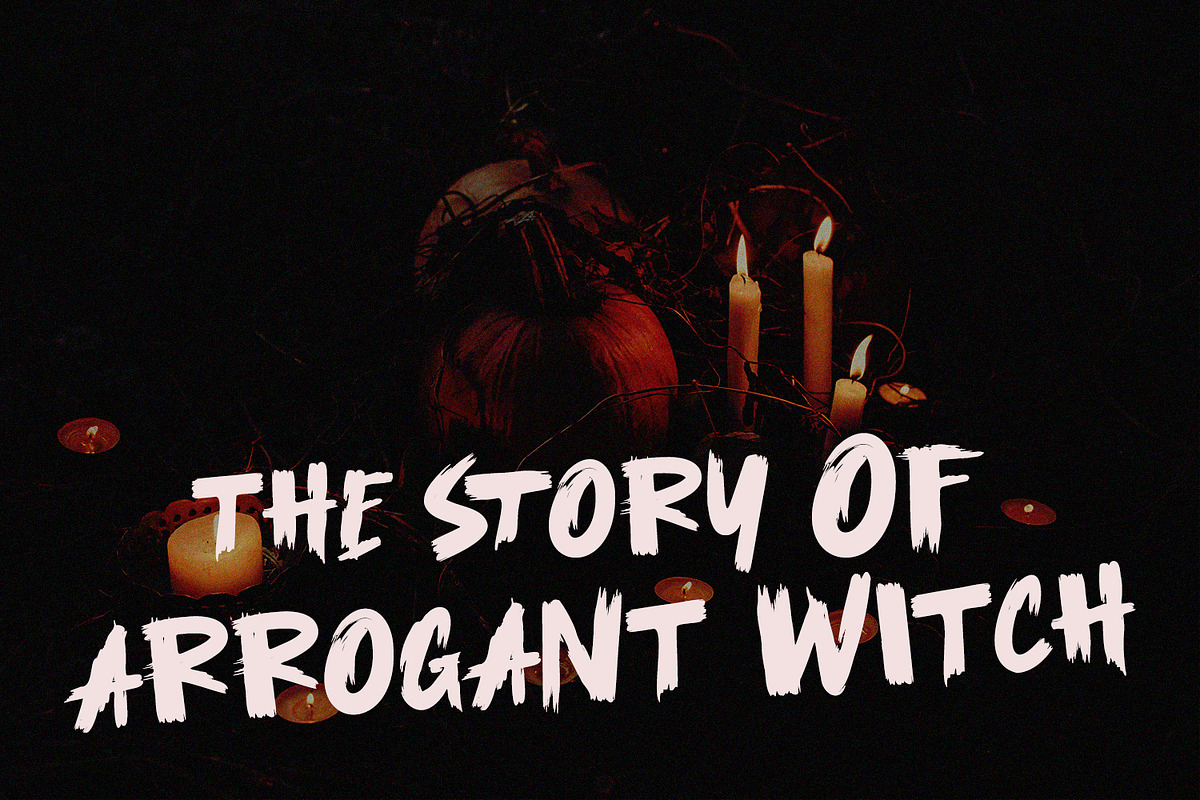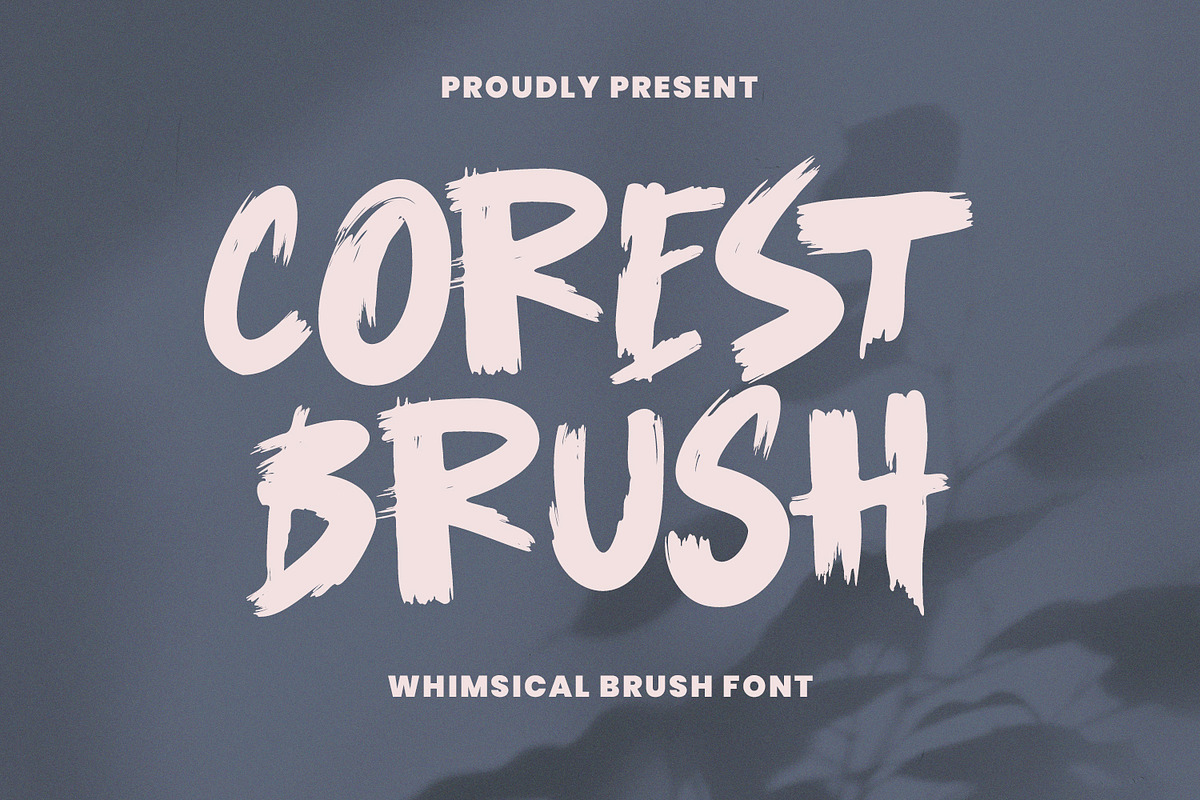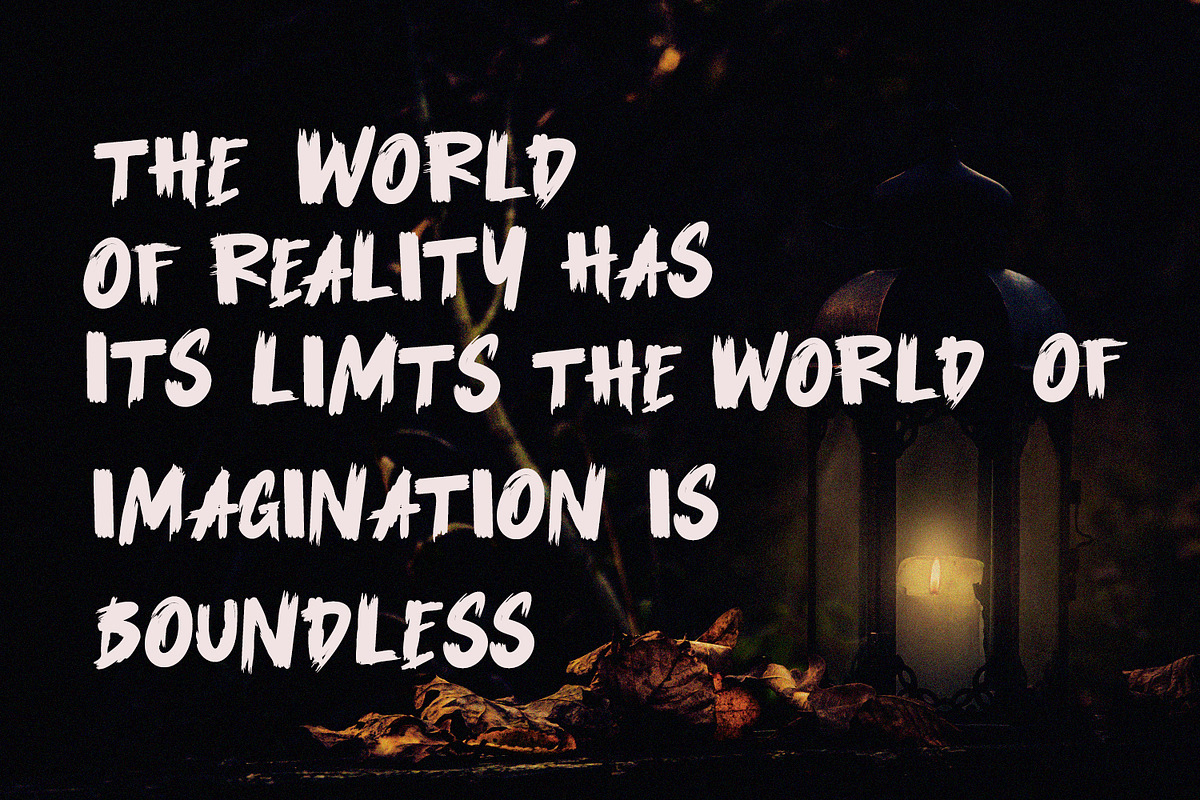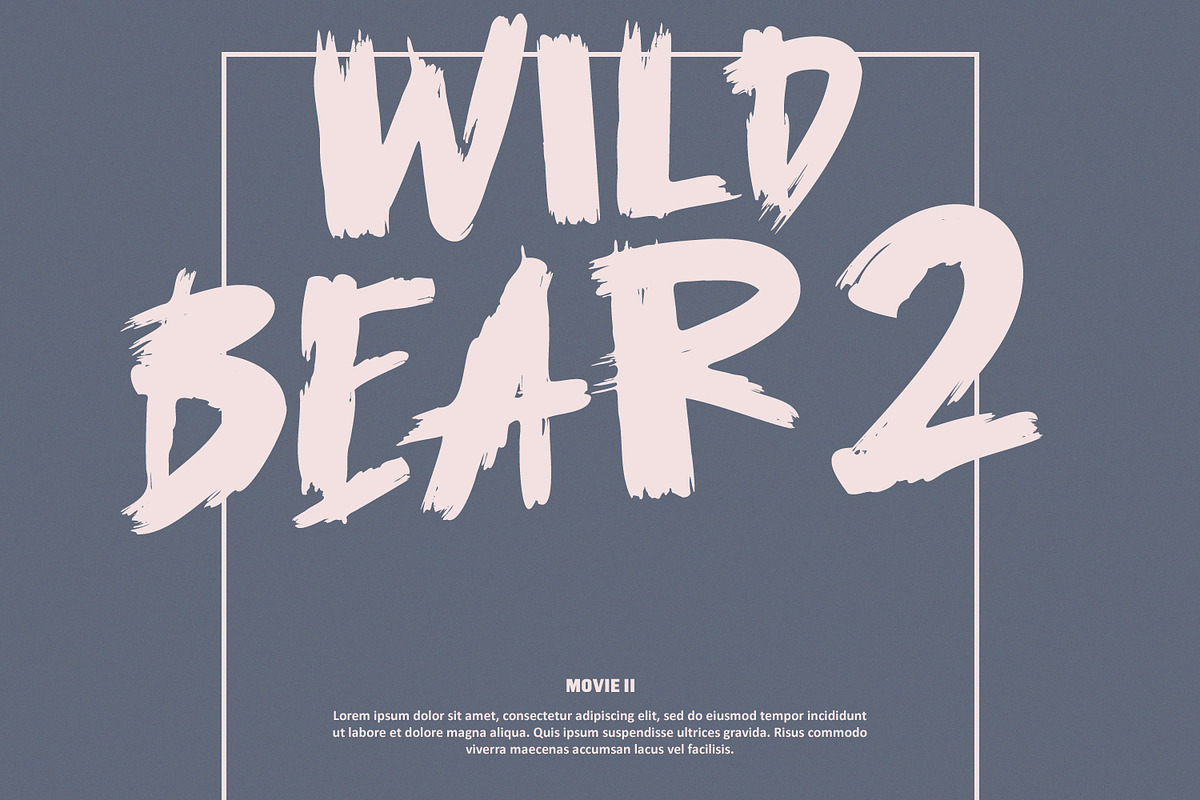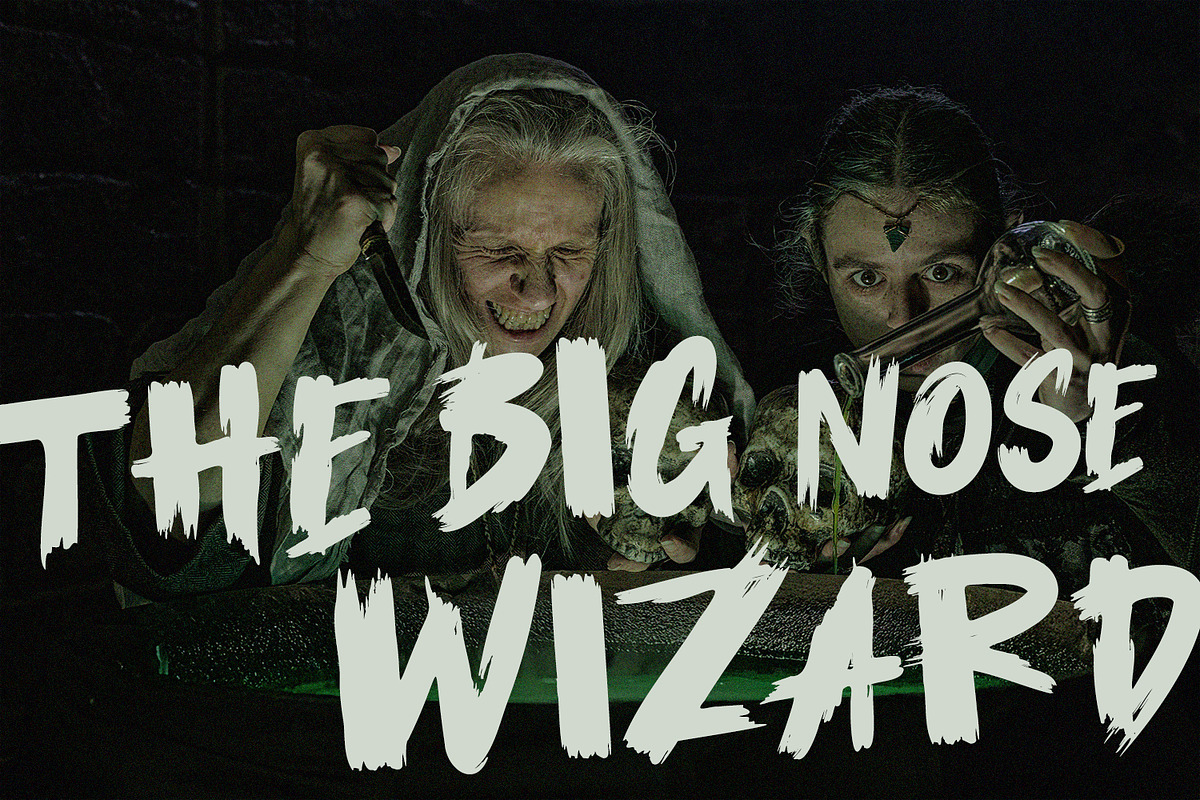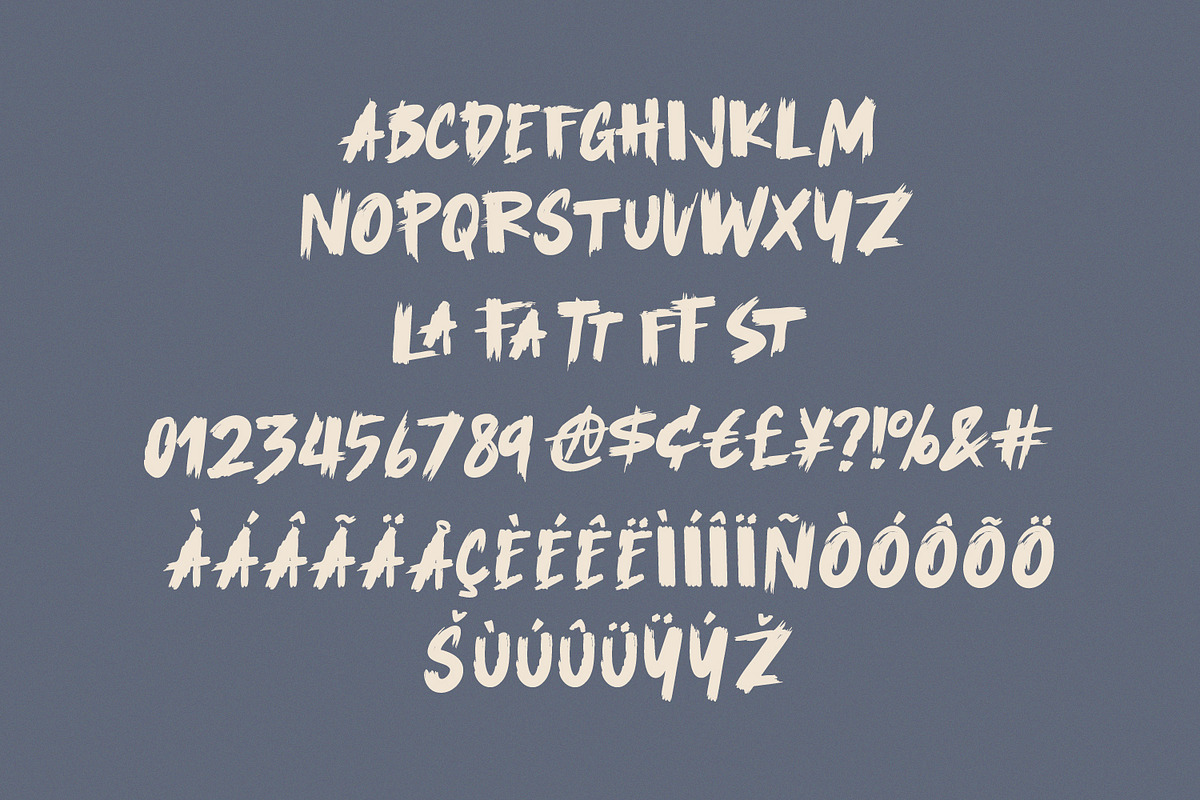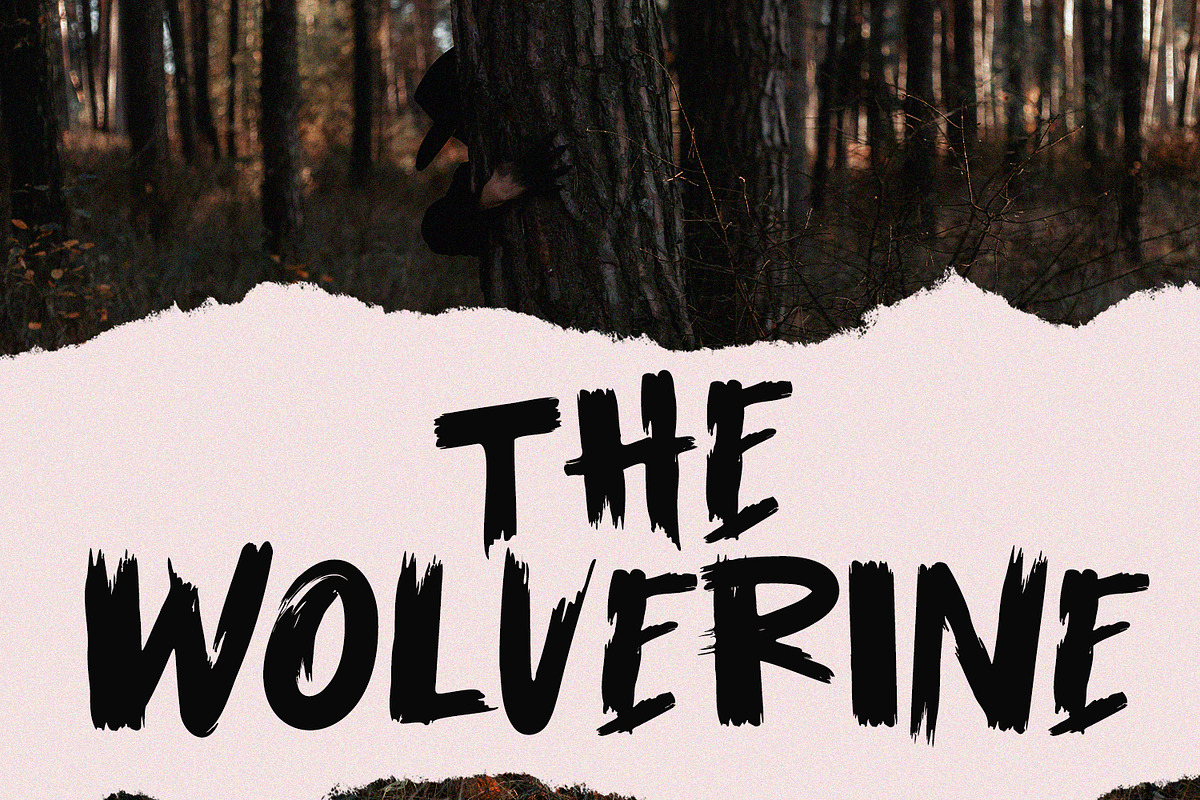
Corest Brush Bold Whimsical Brush
Unleash a sense of adventure and mystery with Corest Brush, a handcrafted display font designed for impact. Featuring authentic dry-brush textures and a whimsical yet gritty aesthetic, this font captures the raw essence of natural brushwork. Its bold, all-caps characters are perfect for cinematic posters, horror-themed branding, streetwear apparel, and dynamic social media graphics. Whether you’re designing a spooky book cover or a wild outdoor advertisement, Corest Brush provides a unique, handmade feel that demands attention.
- Ligatures and Alternates